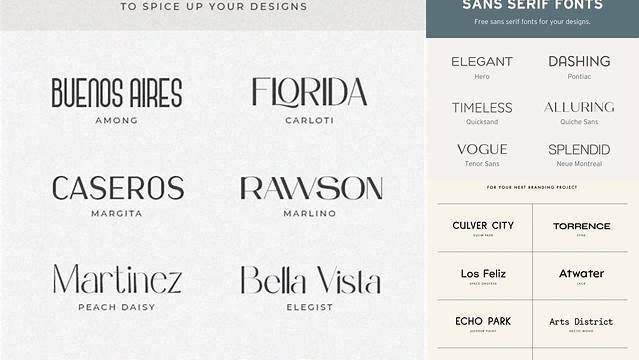
Best Free Sans Serif Fonts For Commercial Use
Finding the perfect font can be a game-changer for any design project, especially when you need something clean, modern, and versatile. And let's be real, who doesn't love free stuff? This article dives into the world of free sans serif fonts for commercial use, offering you a curated list that’ll elevate your designs without breaking the bank. Whether you're working on a website, branding materials, or even a cool poster, we’ve got you covered. Let's jump in and explore these amazing typefaces!
What are Sans Serif Fonts?
Before we dive into the specifics, let's quickly cover what sans serif fonts actually are. The term "sans serif" comes from French, meaning "without serifs." Serifs are those little decorative strokes at the end of letterforms that you see in fonts like Times New Roman. Sans serif fonts, on the other hand, have clean, straightforward lines, making them ideal for modern designs, digital interfaces, and situations where readability is key. They often convey a sense of simplicity, clarity, and modernity. When you're looking for free sans serif fonts for commercial use, understanding this fundamental characteristic is super important. You want something that's both aesthetically pleasing and highly functional for your target audience.
Why Choose Sans Serif Fonts for Commercial Projects?
When it comes to commercial projects, selecting the right font is crucial. Free sans serif fonts for commercial use offer several key advantages. First off, their clean and modern aesthetic tends to resonate well with a broad audience, making them suitable for various branding and marketing materials. Secondly, sans serif fonts are generally more legible on screens, which is essential in today's digital-first world. Think about websites, apps, and online ads – a clear, readable font can significantly improve user experience and engagement. Finally, opting for a free font can save you a considerable amount of money, especially if you’re working on a tight budget or bootstrapping a new venture. It's all about making smart choices that balance quality, usability, and cost-effectiveness.
Best Free Sans Serif Fonts for Logos
Logos need to be versatile, memorable, and, most importantly, legible. Free sans serif fonts for commercial use are often a top choice for logo design because of their clean lines and modern feel. When selecting a font for a logo, consider the overall brand identity. A tech company might benefit from a geometric sans serif, while a creative agency might opt for something more unique and playful. Some popular free options include Montserrat, Lato, and Open Sans. These fonts are not only visually appealing but also scale well, ensuring that the logo looks great whether it’s printed on a business card or displayed on a billboard. It’s all about finding that perfect balance between aesthetics and functionality.
Sans Serif Fonts for Website Design
In the realm of website design, readability is king. Free sans serif fonts for commercial use are frequently used for body text and headings alike. Their clean, uncluttered appearance makes them easy on the eyes, even when viewed on screens of various sizes. When choosing a font for your website, think about the overall design and user experience. A font like Roboto is a solid choice for body text, offering excellent readability at various sizes. For headings, you might consider something a bit bolder, like Poppins or Raleway, to grab attention and create visual hierarchy. Remember, the goal is to create a seamless and enjoyable reading experience for your visitors.
Sans Serif Fonts for Print Materials
Believe it or not, free sans serif fonts for commercial use aren't just for digital projects. They also work beautifully in print materials. Whether you're designing brochures, posters, or business cards, a well-chosen sans serif font can make your text stand out. The key here is to ensure that the font prints clearly at the desired size. Some fonts, like Oswald or Bebas Neue, are particularly effective for headlines and titles, while others, like Source Sans Pro, are ideal for body text. Always test print your designs before finalizing them to ensure that everything looks sharp and professional.
Modern Geometric Sans Serif Fonts
Geometric sans serif fonts are all the rage right now, and for good reason. Their clean, precise lines and perfectly balanced shapes give them a distinctly modern and sophisticated vibe. When looking for free sans serif fonts for commercial use, keep an eye out for options like Montserrat, Futura PT, and Josefin Sans. These fonts are fantastic for creating a sleek and contemporary look in your designs. They work especially well for tech companies, startups, and brands that want to project an image of innovation and forward-thinking.
Minimalist Sans Serif Fonts
Sometimes, less is more. Minimalist sans serif fonts are all about simplicity and elegance. They strip away any unnecessary ornamentation, leaving you with a clean and understated typeface that lets your content shine. Free sans serif fonts for commercial use in this category include Open Sans, Lato, and Roboto. These fonts are incredibly versatile and can be used in a wide range of projects, from websites and apps to print materials and presentations. They’re perfect for brands that want to convey a sense of clarity, honesty, and trustworthiness.
Beyond the Basics: Exploring Unique Sans Serif Styles
Once you’ve mastered the basics of sans serif typography, you can start exploring more unique and unconventional styles. This includes things like hand-drawn fonts, retro fonts, and futuristic fonts. These styles can add a lot of personality and character to your designs. Just be sure to use them sparingly and with purpose. Avoid using fonts that are too distracting or that detract from the overall message of your design.